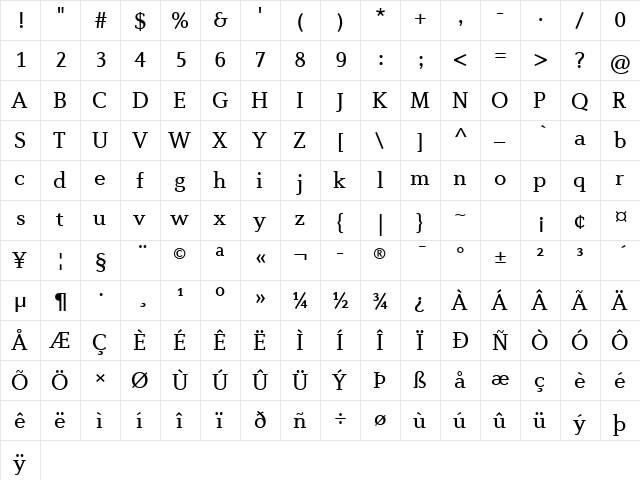
Diverda Serif Com Regular
| Foundry | Linotype GmbH |
| Designer | Daniel Lanz |
Design Context for Diverda Serif Com Typeface
Diverda Serif Com carries the refined structure of traditional serif typography, with bracketed terminals and considered proportions that communicate credibility and craft.
Pro Tip: Use Diverda Serif Com for editorial body copy and considered headline work. Pair with a neutral sans for UI elements or captions to create a classic hierarchy.